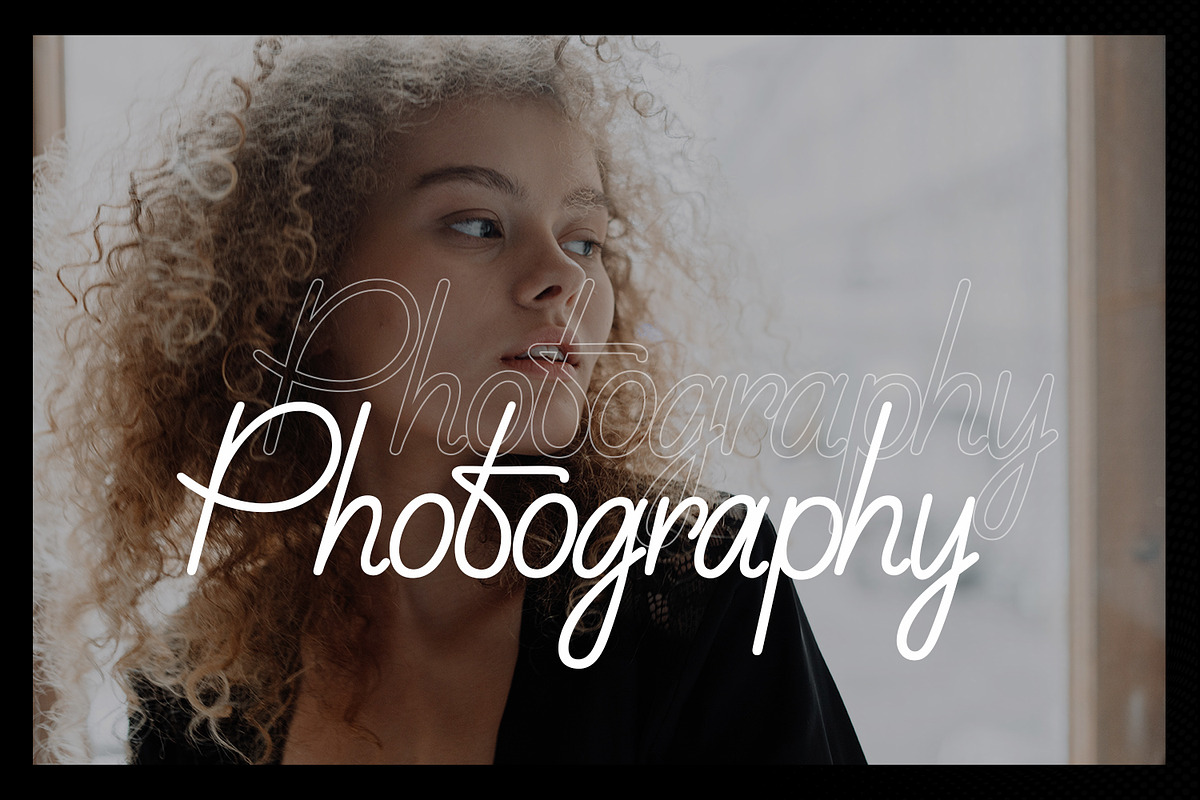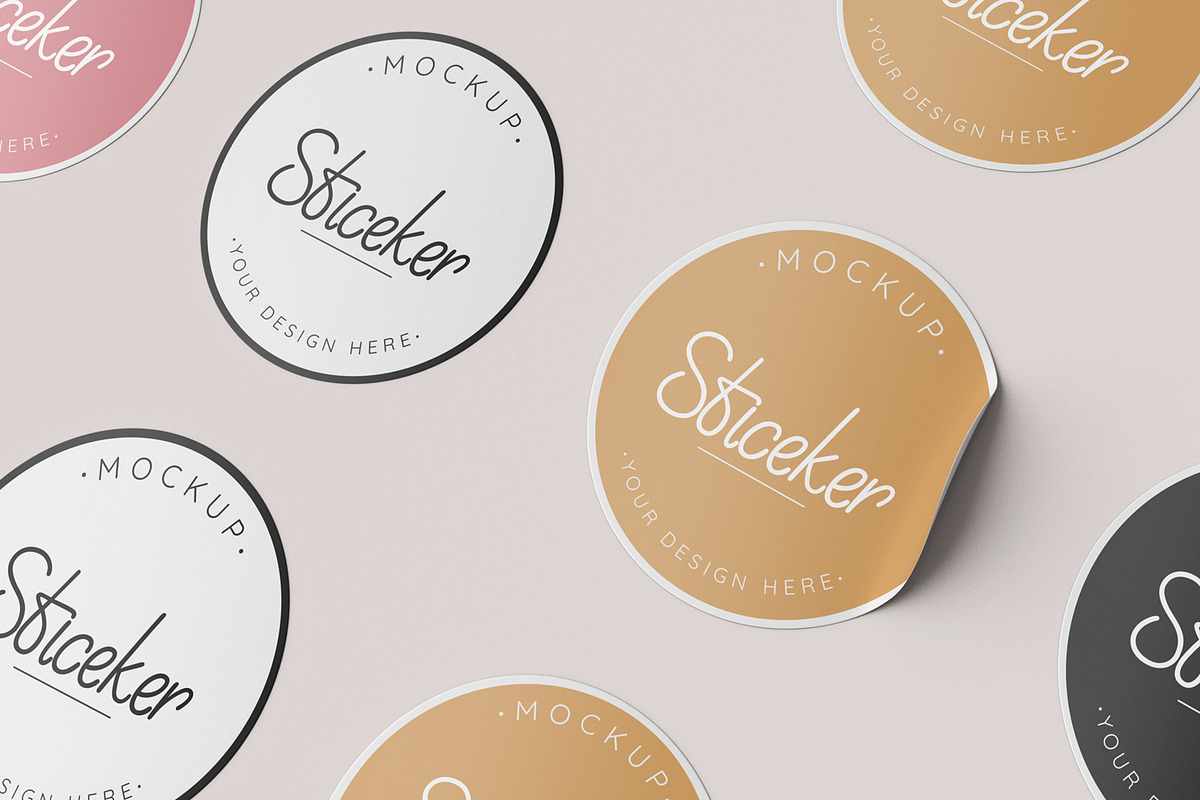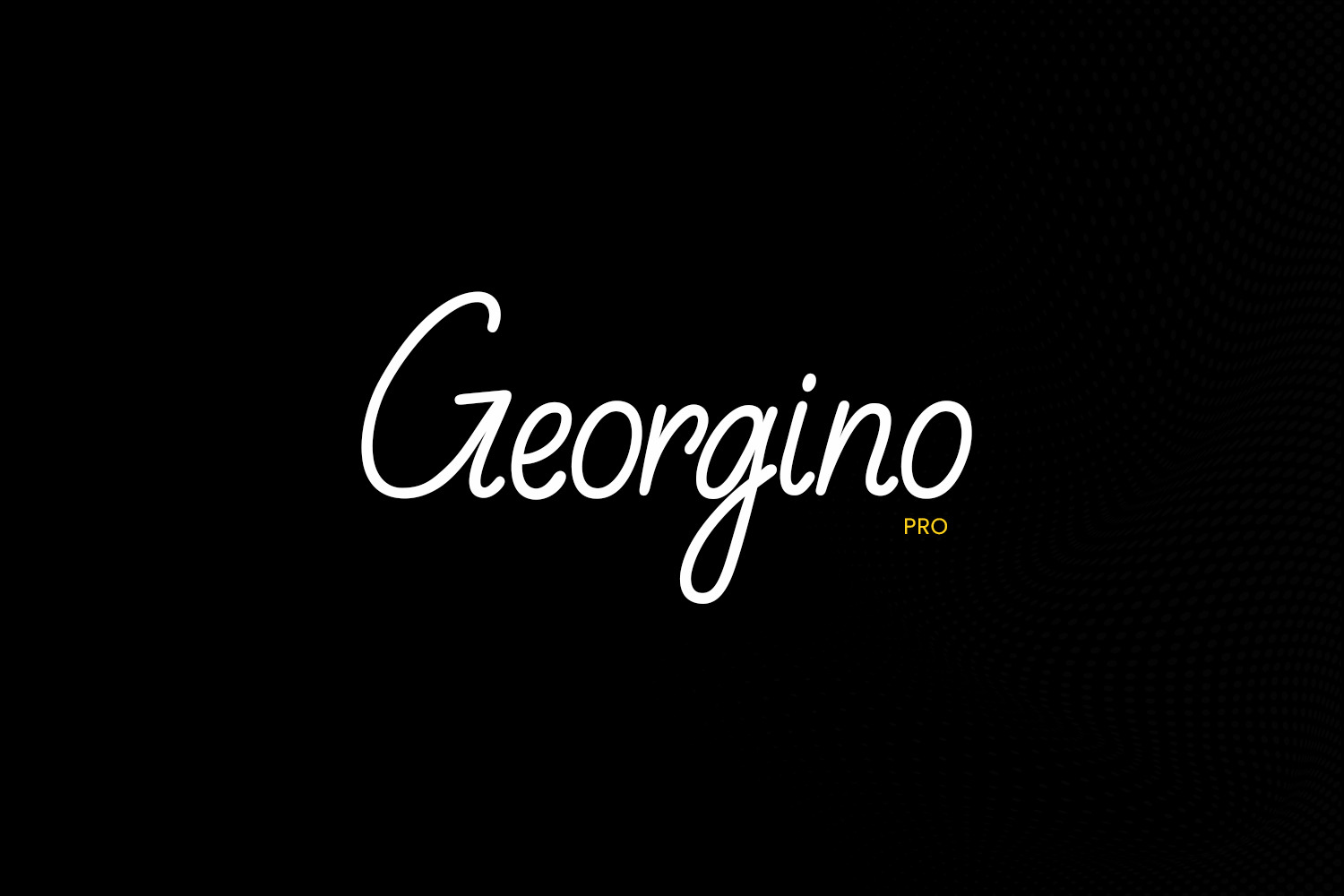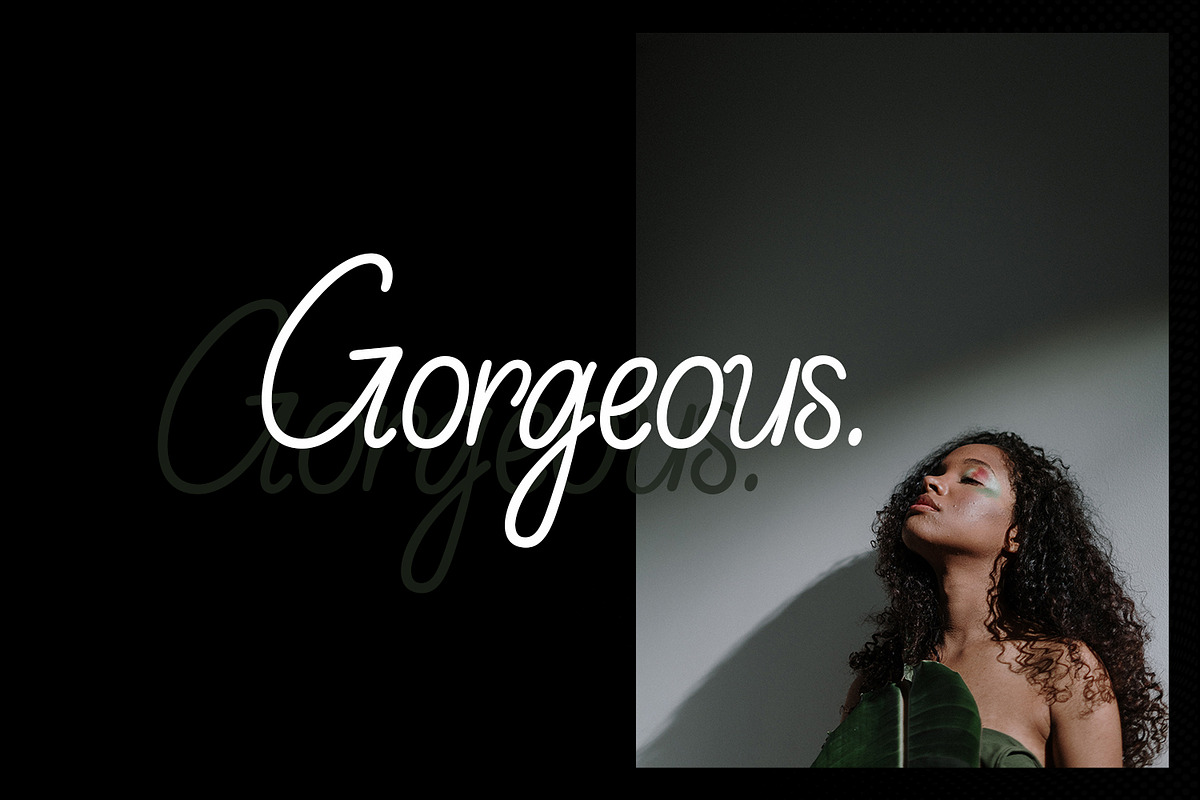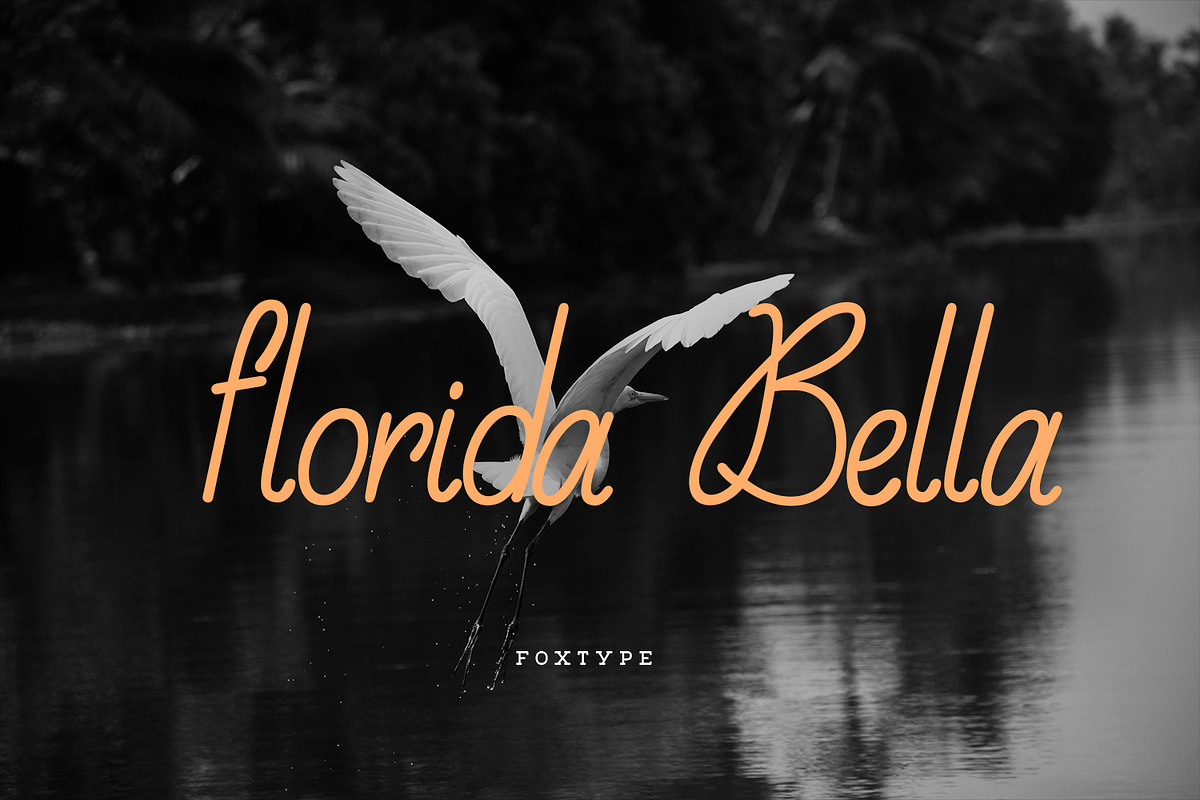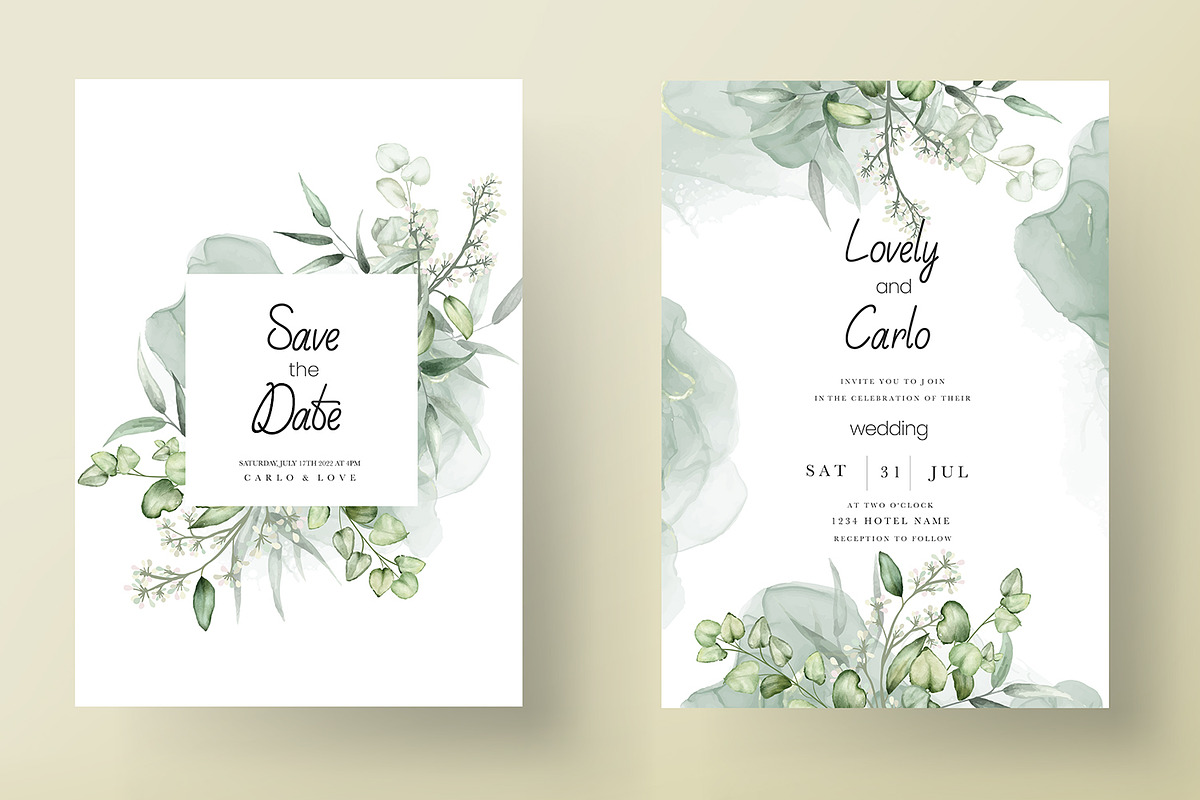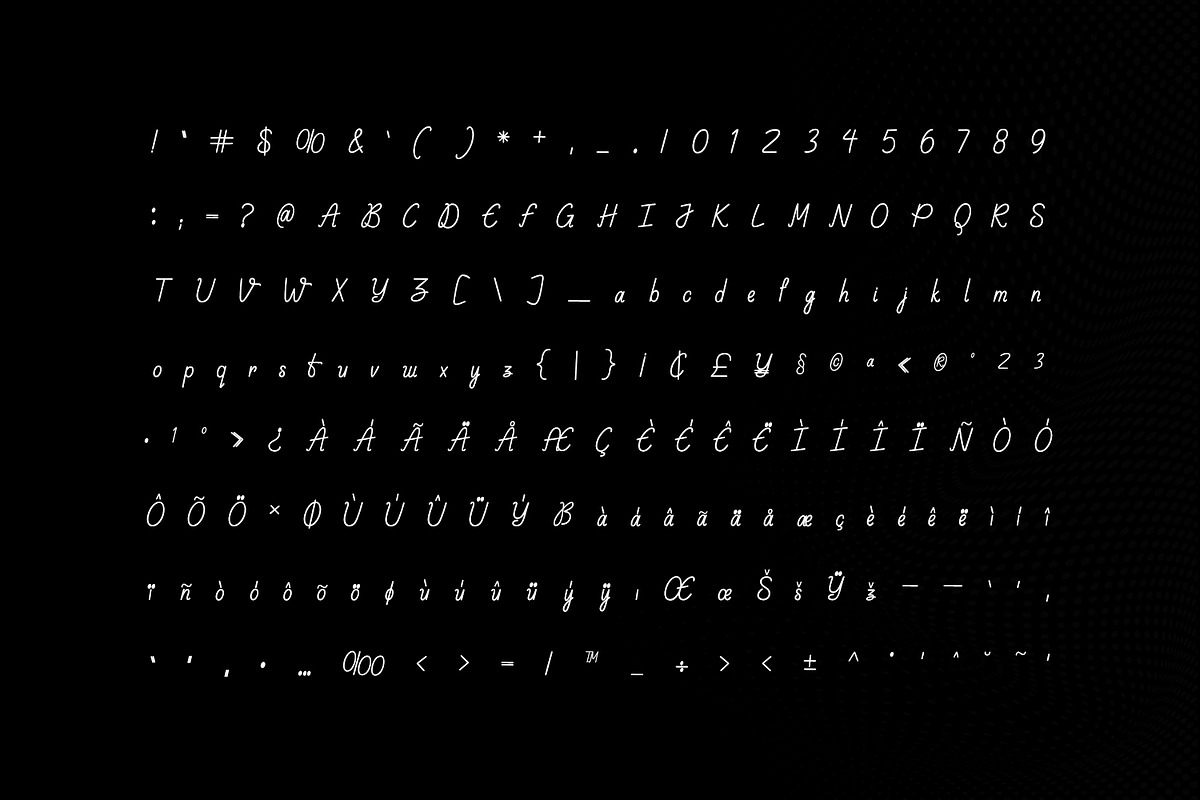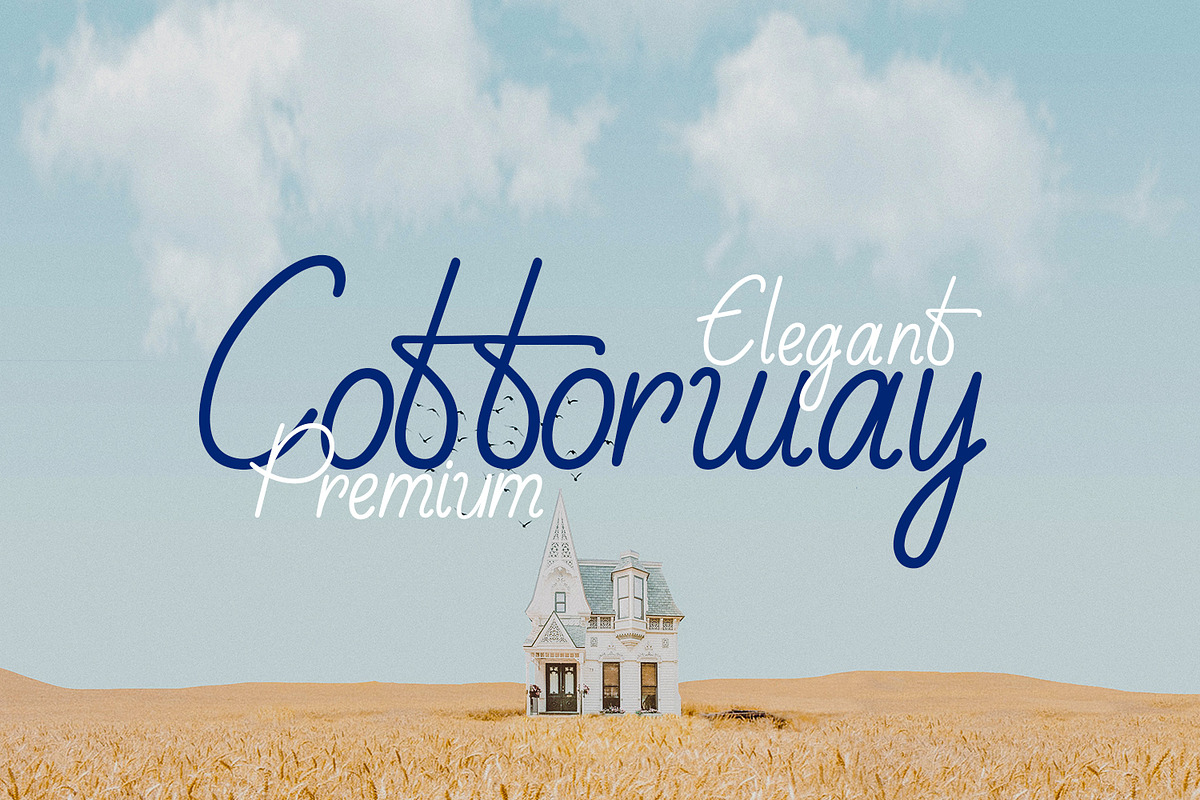
Georgino Handwritten Typeface
Georgino is a Brand New Elegant Handwritten Typeface from FoxType. It has a dependable and uncompromising style, with controlled letterforms and modern touches. It looks amazing in logos, magazines, and movies. Georgino Font would be perfect fo rwedding invitations and wedding calligraphy, feminine or organic logos, small business branding, packaging, and more! . The various weights allow you to experiment with a wide range of applications. It's created to make an impression without sacrificing its beauty and readability. It's shown a clean, minimalist, warmth, quirky, yet still purposed to be versatile
- Numerals and extended punctuation (200+ Glyphs).
- Expert kerning and quality crafting.